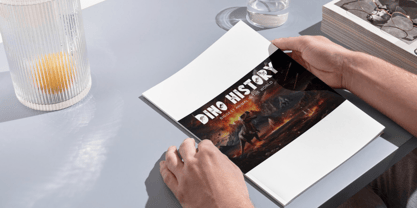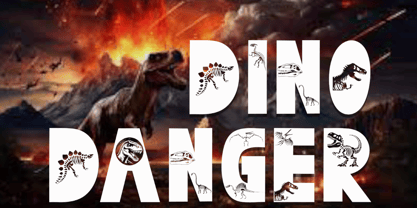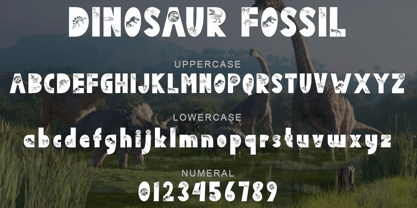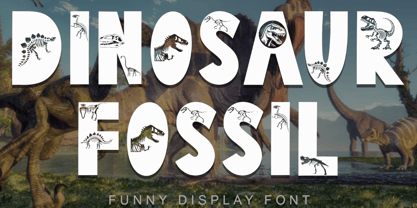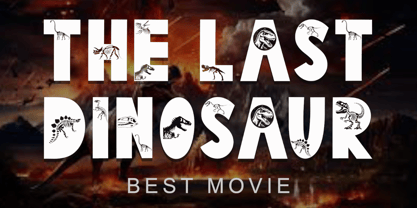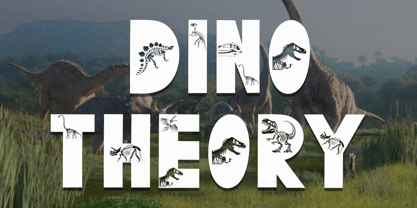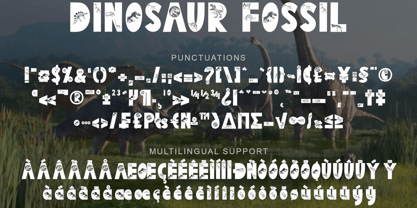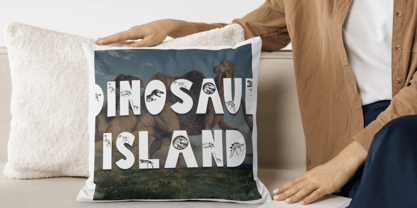
Dinosaur Fossil
by Yoga Letter
The Dinosaur Fossil Font Family was designed by Isroni Yoga Prasetya and published by Yoga Letter. Dinosaur Fossil contains 1 styles.
"Dinosaur Fossil" is a unique and cute display font. This font has a dino pattern on each letter. Equipped with uppercase, lowercase, numbers, punctuation, and multilingual support. Very suitable for something with a dinosaur theme, cartoons, comics, magazines, cartoon movie titles, and others.
Designers: Isroni Yoga Prasetya
Publisher: Yoga Letter
Foundry: Yoga Letter
Design Owner: Yoga Letter